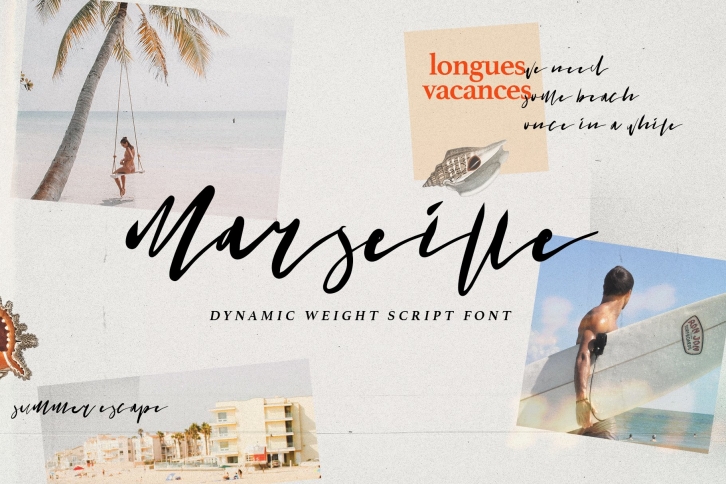
A font that is made using a technical pen with a combination of very bold and thin stroke on each letter. With this method, it creates a unique letter composition. Create a distinctive design by using this font, you can accomplish a unique design that some regular script font can't accomplish. It works beautifully for personal branding and advertising. This font features uppercase, lowercase, liggatures, punctuation, & numerals. Try it yourself below!